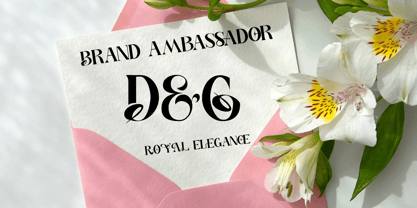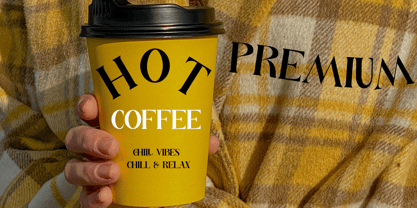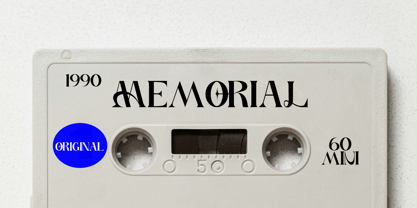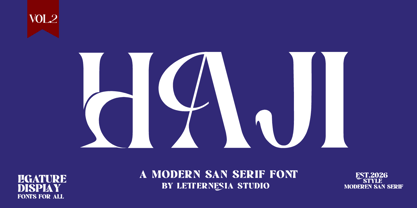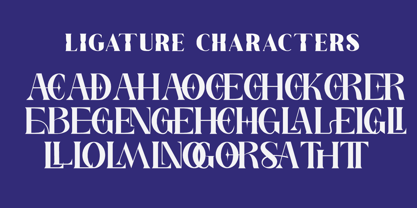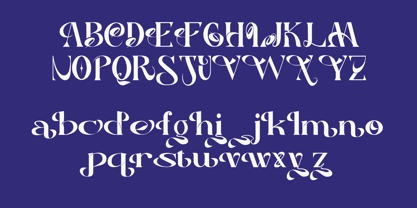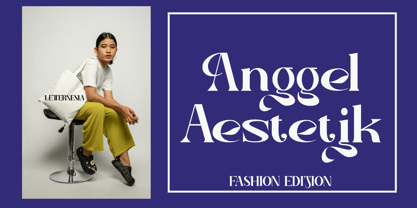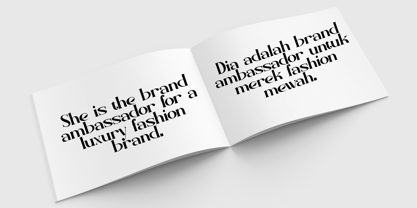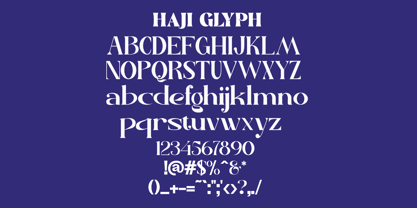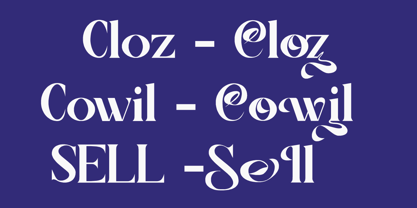
Die Schriftfamilie Haji wurde von Ta Siyo entworfen und von Letternesia studio veröffentlicht. Haji enthält 2 Stile und Familienpaketoptionen. Mehr über diese Familie
HAJI is a distinctive display font inspired by elegance, spirituality, and timeless tradition. Crafted with strong letterforms and refined details, this font is perfect for Islamic-themed designs, religious events, branding projects, packaging, logos, posters, and modern promotional materials.
Combining a classic cultural feel with contemporary design aesthetics, HAJI delivers a bold and memorable appearance while maintaining excellent readability. Whether used for headlines, branding, or creative projects, HAJI brings a sense of authenticity, sophistication, and professionalism to your work.